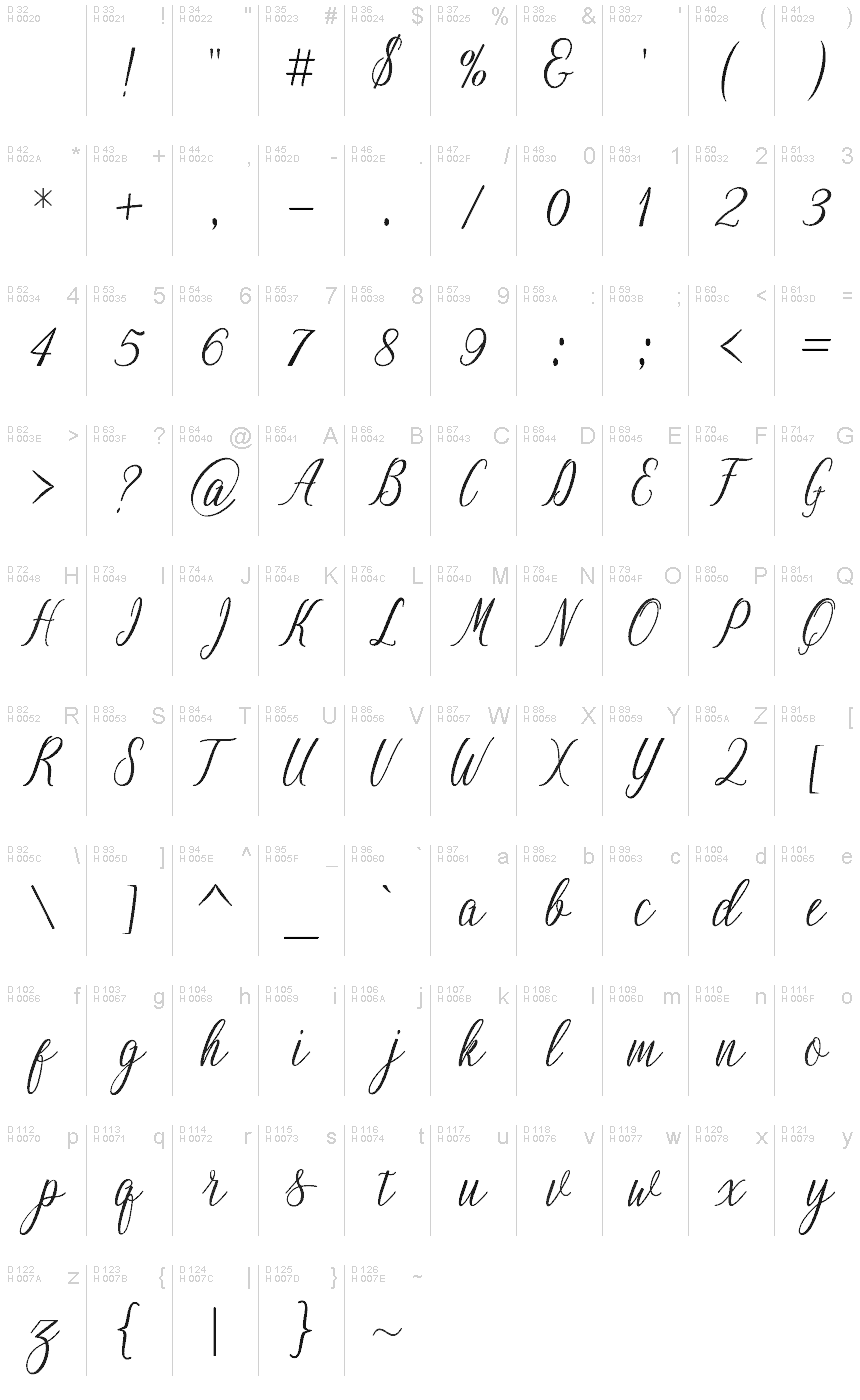
NightingaleScript
Nightingale Script is a captivating calligraphic font that exudes elegance and sophistication. Crafted by the renowned font designer JoeCreative, this light, condensed typeface boasts a graceful, sweeping aesthetic. The fluid, cursive strokes and delicate flourishes lend an air of refined artistry, making Nightingale Script a versatile choice for a wide range of design applications.
From high-end editorial layouts to invitations and branding, this font's distinctive flair can elevate any project with its timeless charm and refined sensibility.